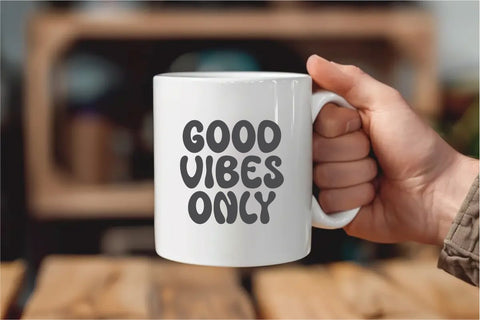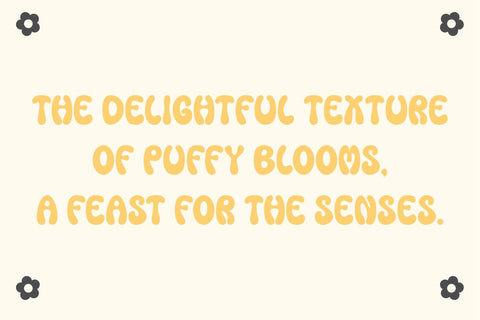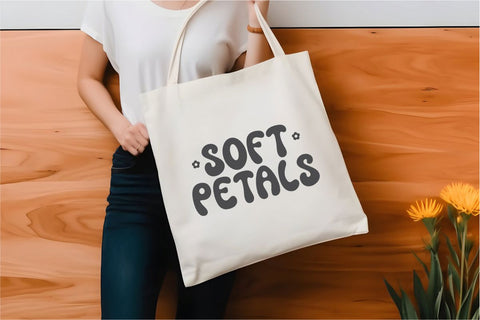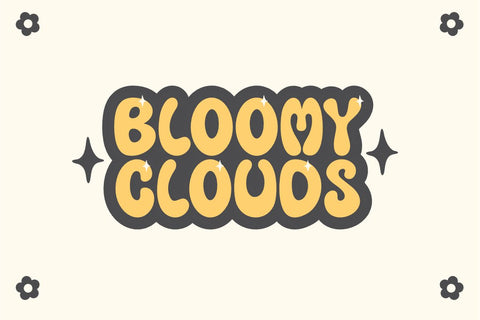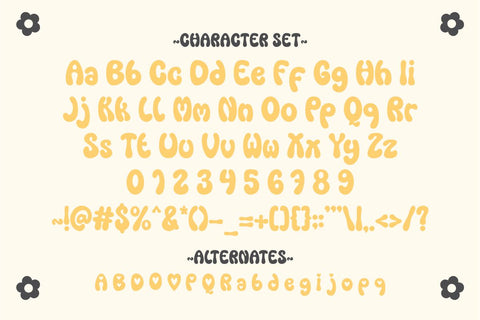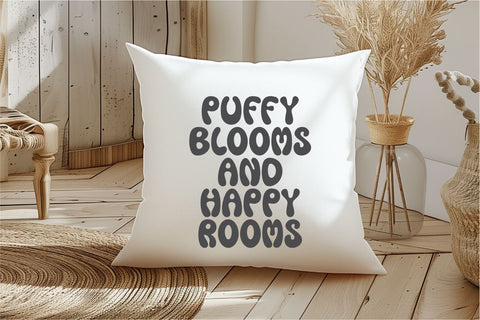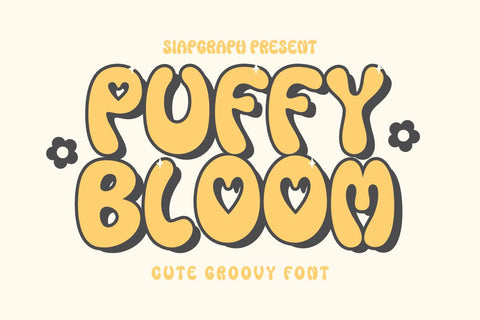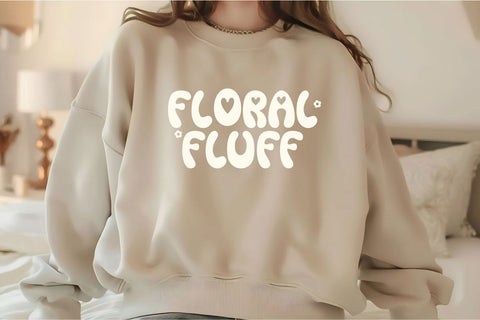
Puffy Bloom - Cute Groovy Font
Puffy Bloom is a cute, groovy font that comes in a chubby, cheerful and adorable shape! Great for Cricut, sublimation, t-shirts, stickers, planners, scrapbooks and other DIY projects. With a bold and cute design, this font is perfect for children's designs, small business branding, and digital products!